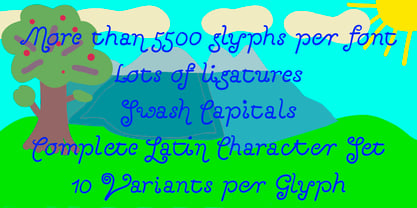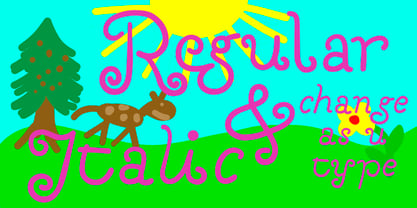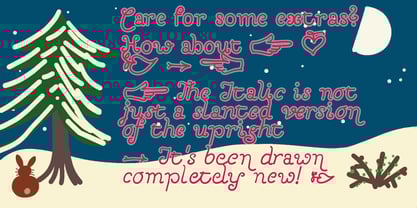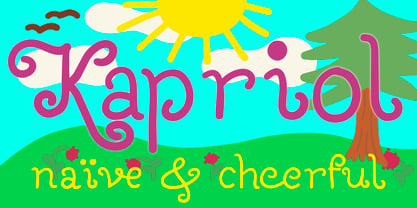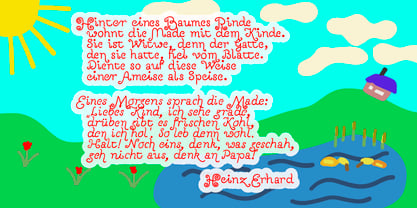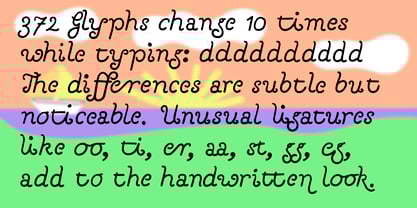
Kapriol
Die Schriftfamilie Kapriol wurde von Werner Eschmann entworfen und von Fontroll veröffentlicht. Kapriol enthält 2 Stile und Familienpaketoptionen.
As with some others of our projects, we've implemented a "change-as-you-type" technology in our latest typeface, Kapriol. This means that the appearance of the glyphs changes as you type. Each of the more than 370 characters has 10 variations, resulting in over 5200 glyphs in each of the two font files. In addition, there are some unusual ligatures, such as aa, ee, oo, st, ct, de, and eg, which add further dynamism to the font. These ligatures also have 10 variations each. To add even more variety to the typeface, there are also swash variations for each capital letter. Kapriol includes the complete Latin-based character set of Eastern European and Turkish languages.
Fontroll foundry currently consits solely of Werner Eschmann, Zürich, Switzerland. For more than 30 years I follow the type design scene and developments in technique. For about the same period I’ve been creating fonts ‑ without finishing most of them. Thanks to coronavirus pandemic I finally had some time to complete my best ideas. Expect to see a couple of new fonts with a twist.